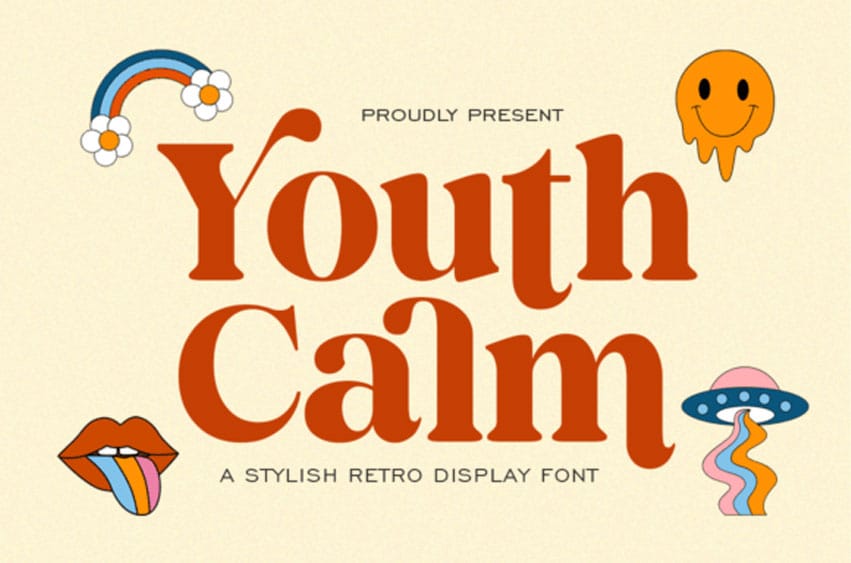
Youth Calm Font is a stylish, retro serif display font.
Its funk and groove will definitely come in handy when you need to create some relaxed, laid-back designs.
Youth Calm Font is a stylish, retro serif display font.
Its funk and groove will definitely come in handy when you need to create some relaxed, laid-back designs.